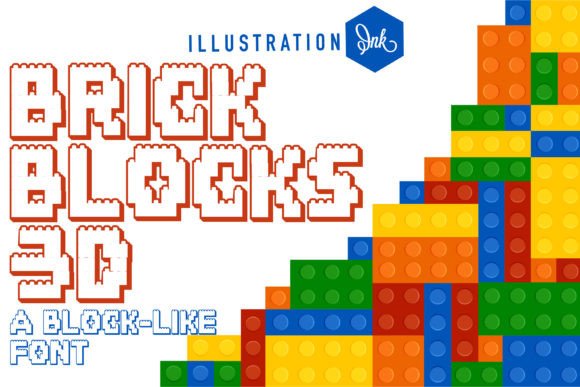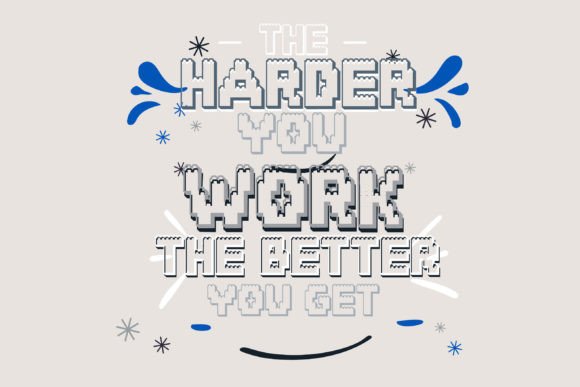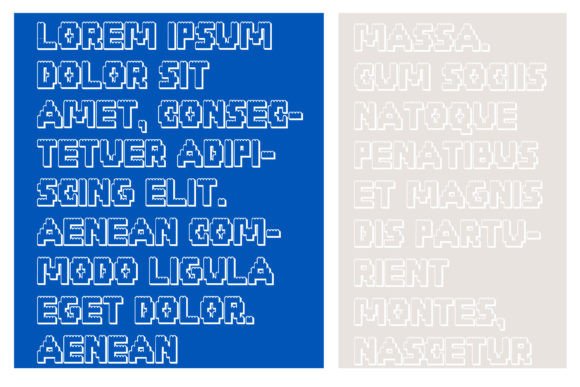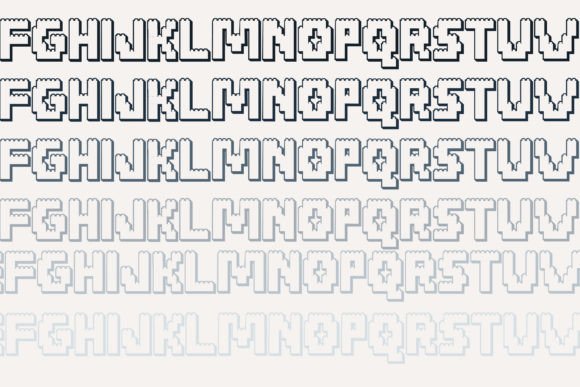
Brick Blocks 3d Font
About the Brick Blocks 3d Font
The Brick Blocks 3d Font is here to transform your projects with its distinctive character and style. Brick Blocks 3D is a fun font that mimics the look of 3D textured building blocks. Each letter resembles a colorful brick, stacked together to create a playful and unique effect. It’s perfect for adding a touch of creativity and excitement to your designs or projects!
Brick Blocks 3D’s playful, three-dimensional structure makes it ideal for headlines, logos for children’s products, or playful branding for businesses targeting a younger demographic. It also works well on short, impactful phrases in posters or packaging design where its unique texture adds visual interest. However, its three-dimensional nature and relatively large x-height make it unsuitable for body text or UI elements requiring high readability.
Consider pairing Brick Blocks 3D with a clean sans-serif like Open Sans for a balanced contrast, or a classic serif font such as Garamond for a more sophisticated feel. A simple, geometric sans-serif could also provide a modern counterpoint, enhancing the font’s playful energy.
The overall personality of Brick Blocks 3D is undeniably bold and playful, conveying a sense of fun and childlike wonder. This makes it an excellent choice for projects that require a vibrant, energetic, and memorable visual identity.
Brick Blocks 3d Font Usage Examples
Brick Blocks 3d Font Example